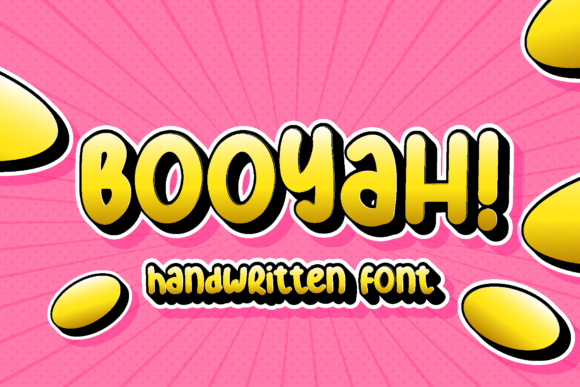
The Booyah Font: A Retro and Playful Addition to Your Creative Projects
I’ll never forget the time I was working on a fun project for a client’s birthday party invitation. I had all the design elements ready – the colors, images, and layout – but something was missing. The font I was using just didn’t have the right vibe. It was then that I stumbled upon the Booyah font, a retro and playful handwritten font that instantly elevated my design. In this article, I’ll share my experience with Booyah, its features, and how to make the most of it in your creative projects.
An Honest Review of Booyah Font
What I Love About Booyah Font
- ✨ Unique and Playful Style: Booyah has a distinctive, hand-drawn feel that’s perfect for projects that need a personal touch.
- ✅ Easy to Read: Despite its playful nature, Booyah is surprisingly legible, making it suitable for both headings and body text.
- 💫 Versatile: This font can be used for a wide range of projects, from party invitations to branding and advertising materials.
While Booyah is an excellent font, there are a few things to keep in mind:
- 🤔 Limited Formality: Booyah’s playful nature makes it less suitable for formal or professional projects that require a more serious tone.
- ⚠️ Overuse Can Be Overwhelming: Using Booyah excessively can make your design feel cluttered and overwhelming.
The Backstory of Booyah Font
Booyah was designed by a creative team that wanted to capture the essence of retro playfulness in a font. Inspired by vintage posters, party invitations, and handwritten notes, Booyah was born. The design team aimed to create a font that would bring a smile to people’s faces and add a personal touch to any project.
Q: What type of projects is Booyah best suited for?
A: Booyah is perfect for creative projects that require a playful and personal touch, such as party invitations, branding, and social media graphics.
Q: Is Booyah a difficult font to read?
A: Despite its playful nature, Booyah is surprisingly legible and easy to read, making it suitable for both headings and body text.